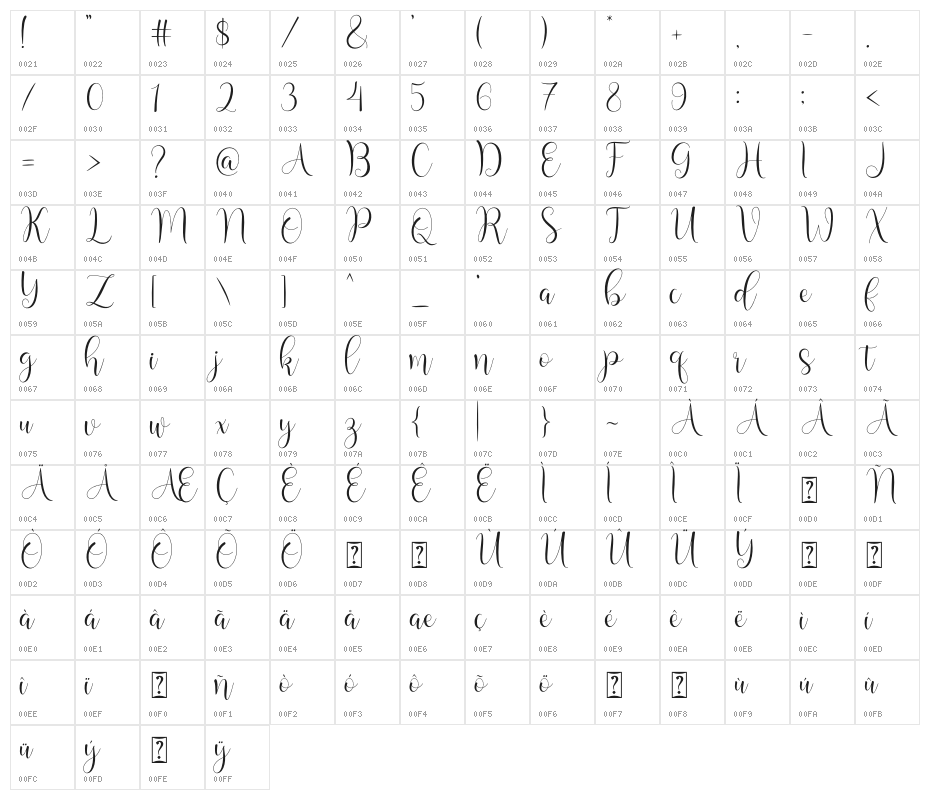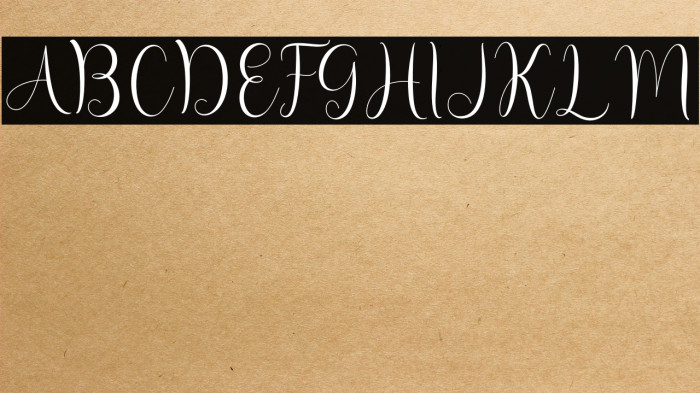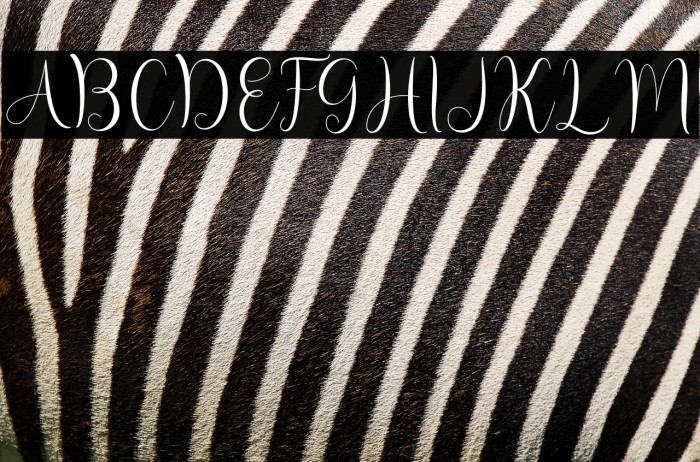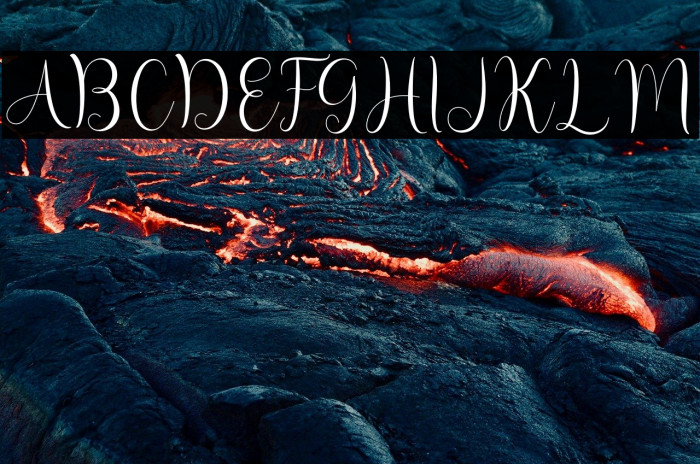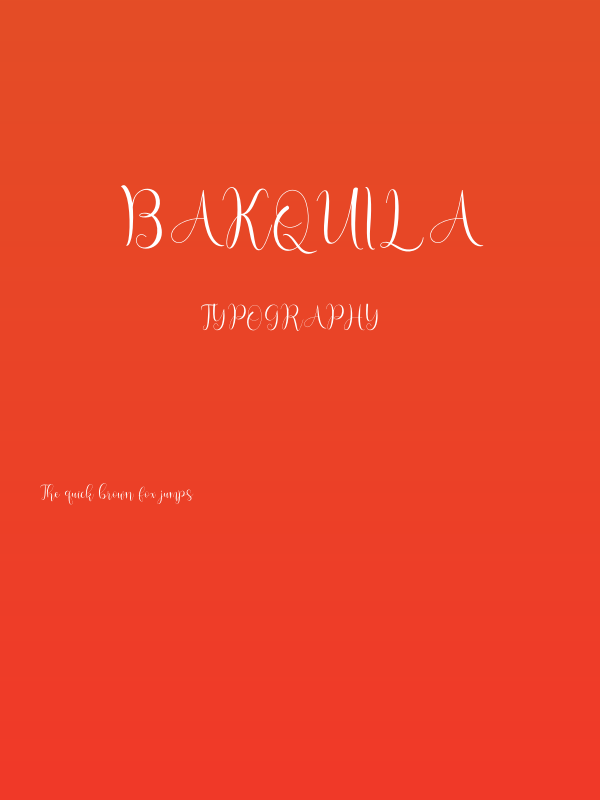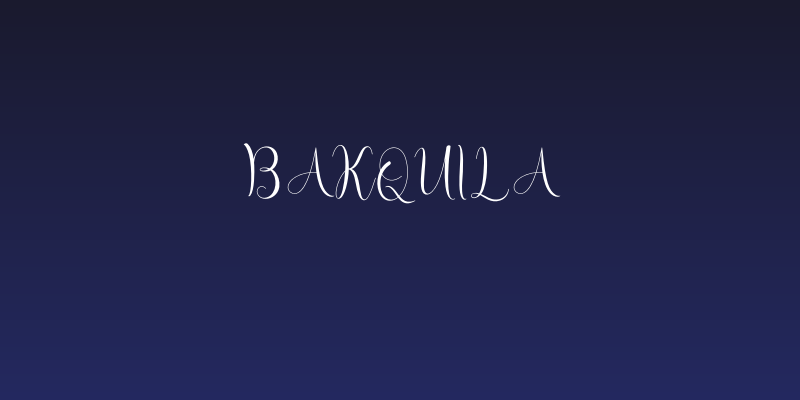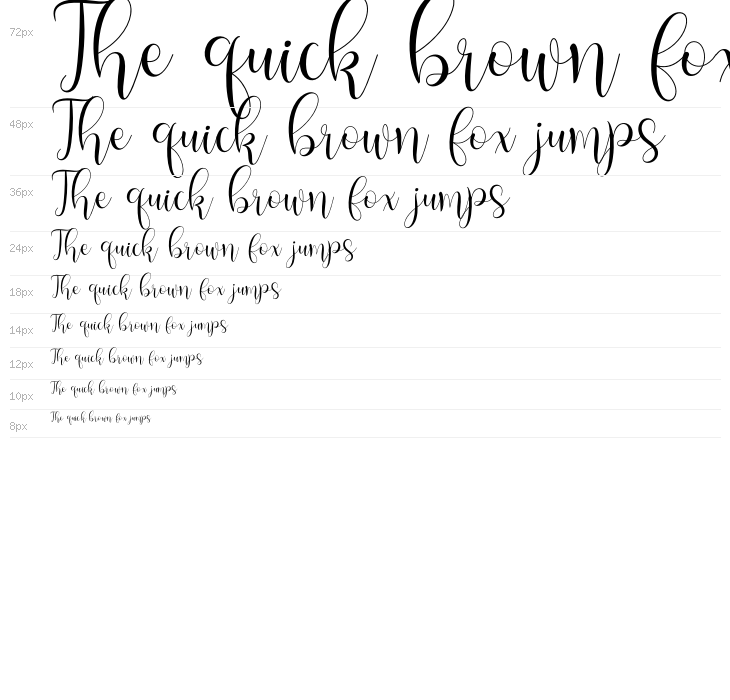
Bakquila Font
Bakquila Description
This elegant script font features a flowing, cursive style with graceful loops and swirls. The uppercase letters are tall and slender, with a slight slant that adds a sense of motion and fluidity. The lowercase letters are more compact, maintaining the same elegant curves and loops, creating a harmonious balance between the two cases. The numerals are consistent with the overall style, featuring similar curves and a slightly elongated form. Special characters are designed with the same attention to detail, ensuring they blend seamlessly with the rest of the font. This font exudes sophistication and charm, making it ideal for projects that require a touch of elegance.
| Overall Style | Elegant |
| Use Case | Logos, Invitations, Decorative Text |
| Proposed Projects | Ideal for wedding invitations, elegant branding, luxury product packaging, and decorative signage. |